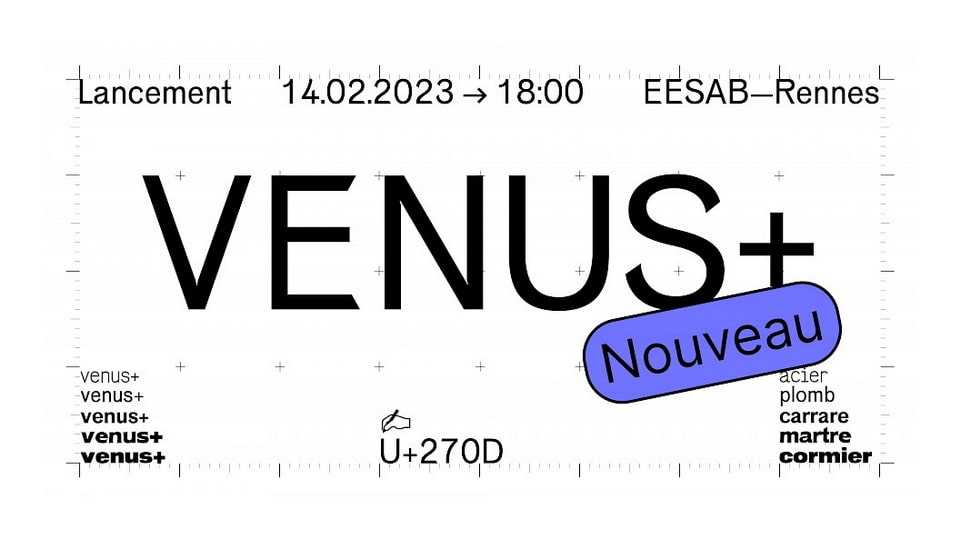
Download Venus+ font, a sans serif typeface, inspired by forms induced by a technical process in use in the first half of the 20th century. Designed from the Venus, published by the Bauer Type foundry from 1907, the Venus+ family pays homage to the materials and techniques that have shaped typographic forms.
Designer: U+270D